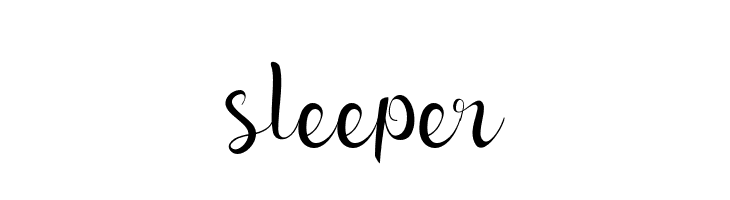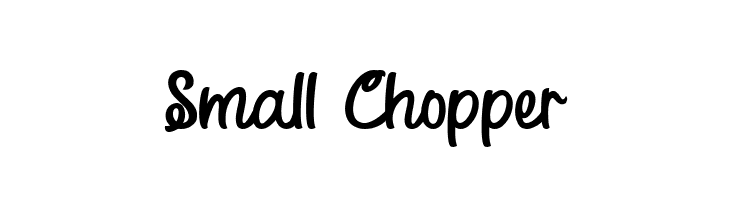
A modern, elegant script font with flowing curves and decorative swashes.
A bold, brush-style font with dynamic, hand-painted strokes.
A lively, cursive font with elegant curves and a hand-drawn appearance.
A futuristic, geometric font with bold outlines and sharp angles.
A bold, cursive script font with elegant, flowing letterforms.
A pixelated, grid-based font with a modern digital aesthetic.
A bold, distressed font with an eroded, vintage texture.
Bold, graffiti-inspired font with dynamic and expressive characters.
An abstract, graffiti-inspired decorative font with bold, swirling forms.